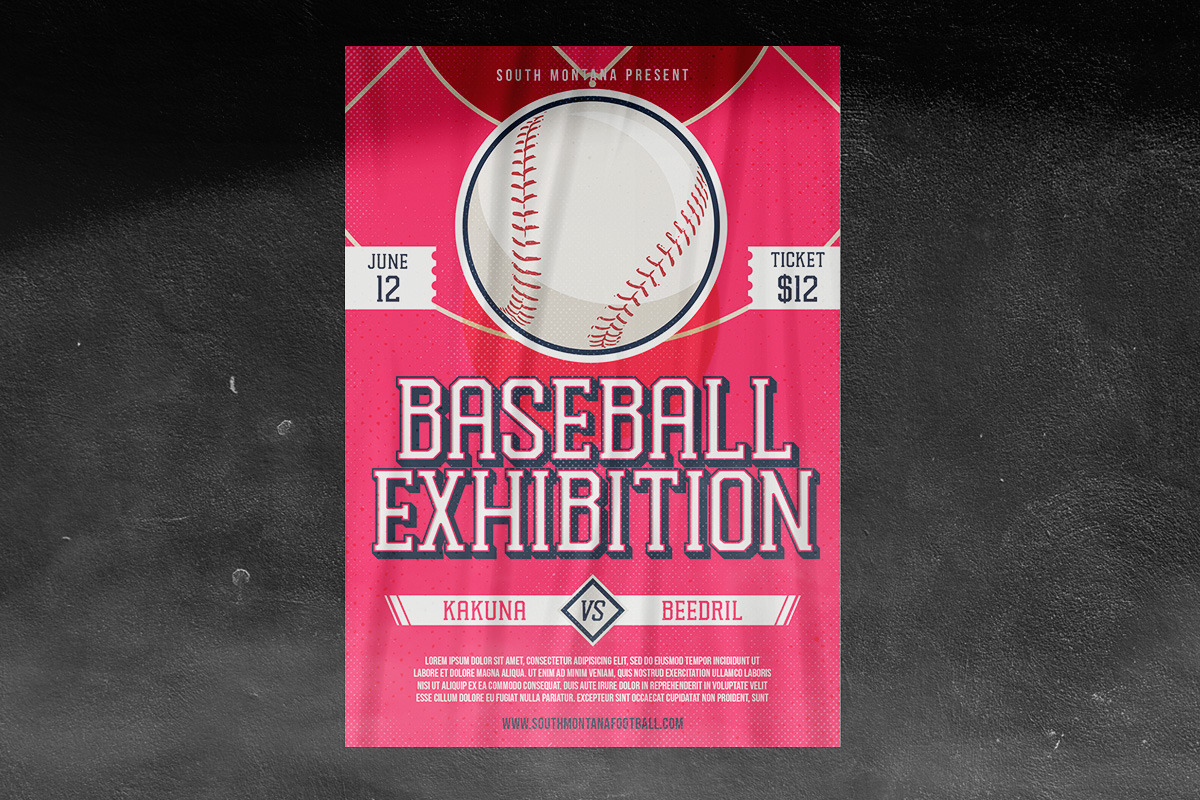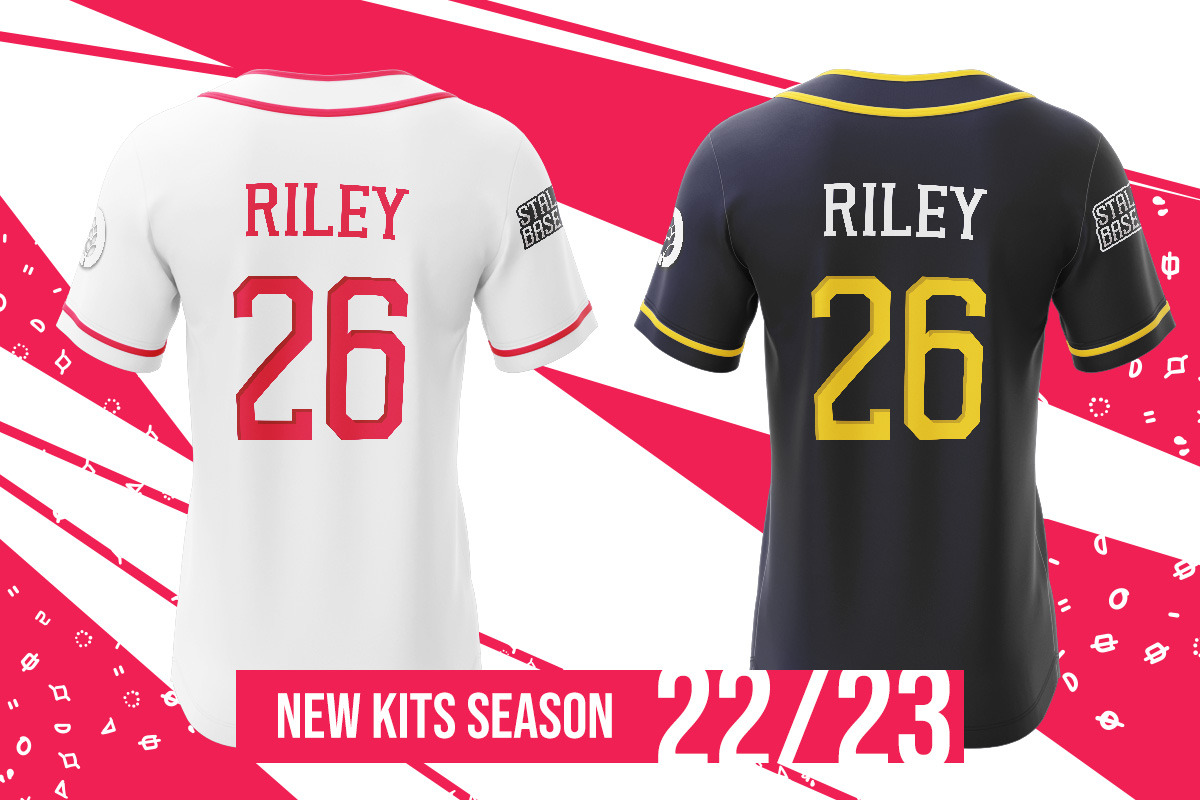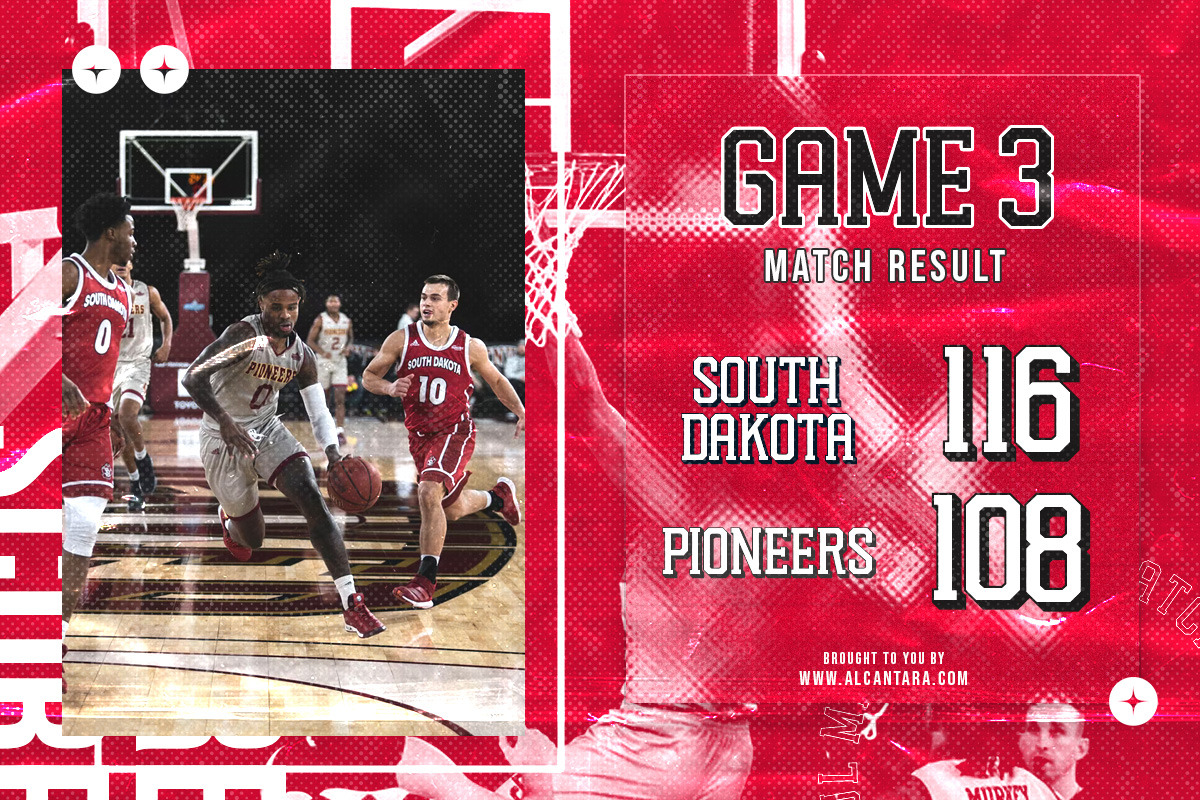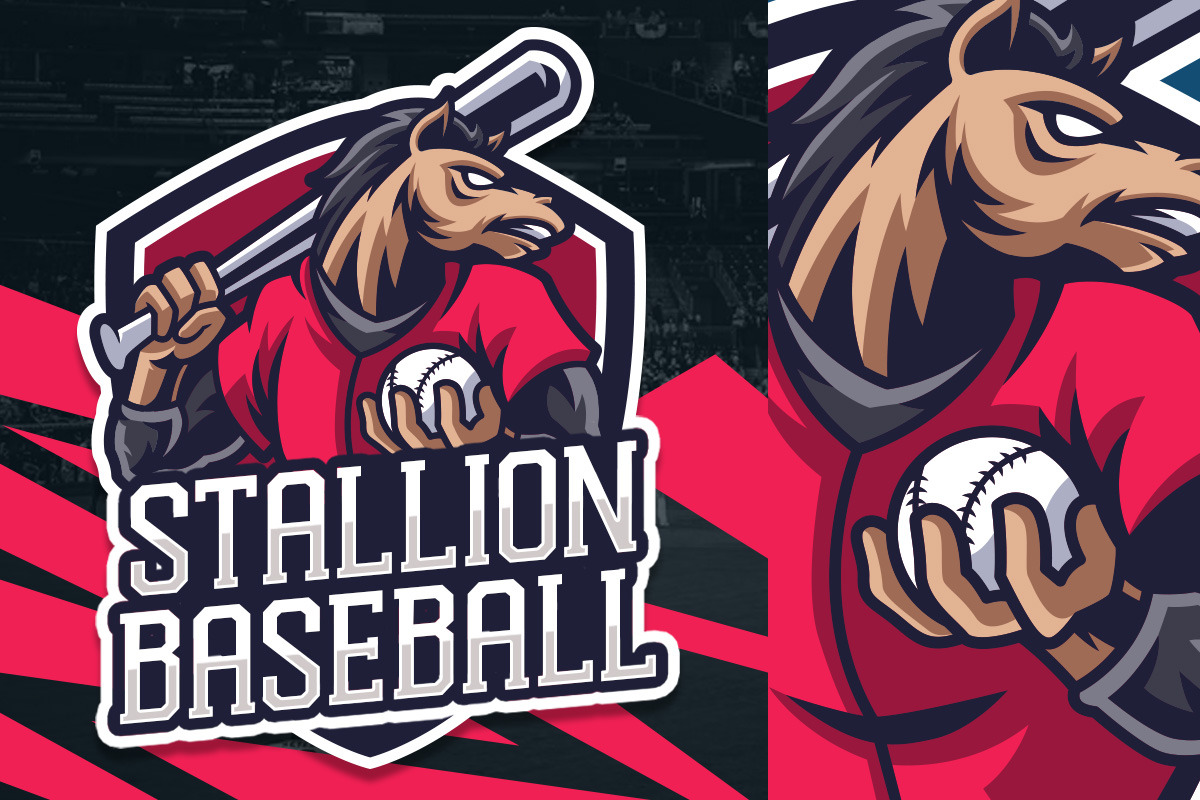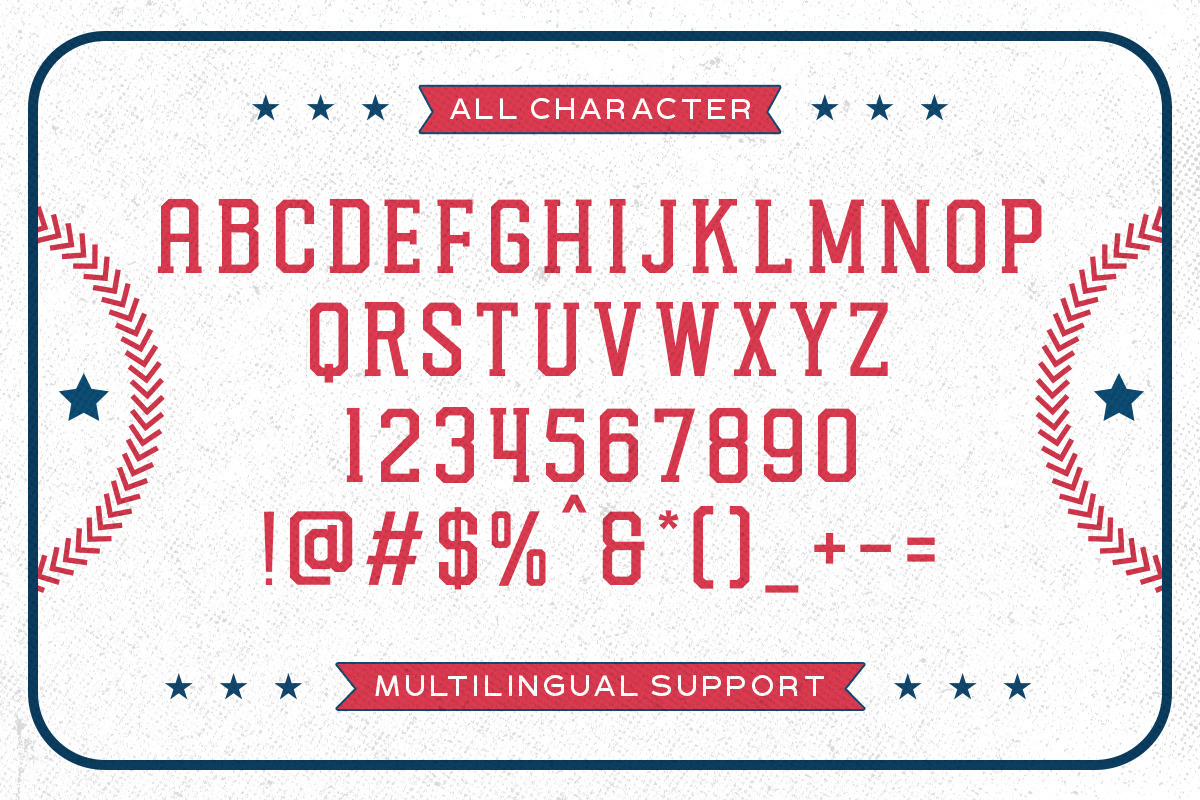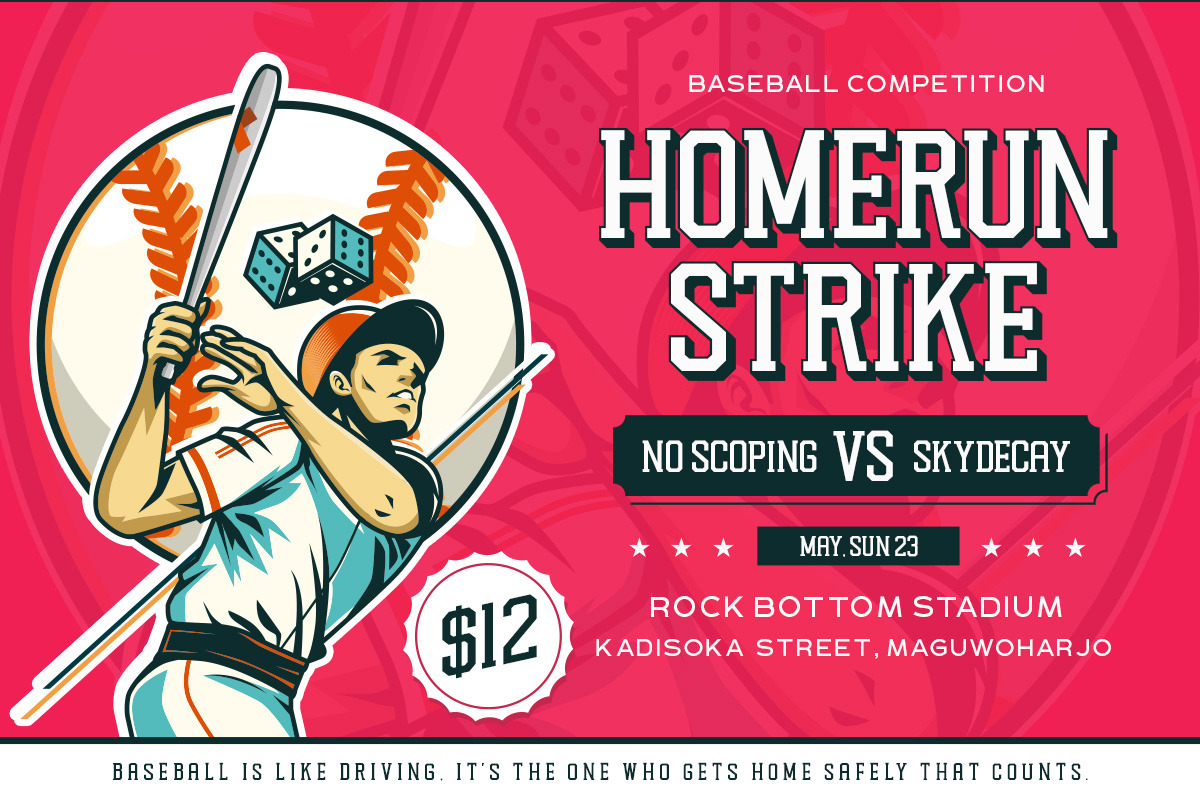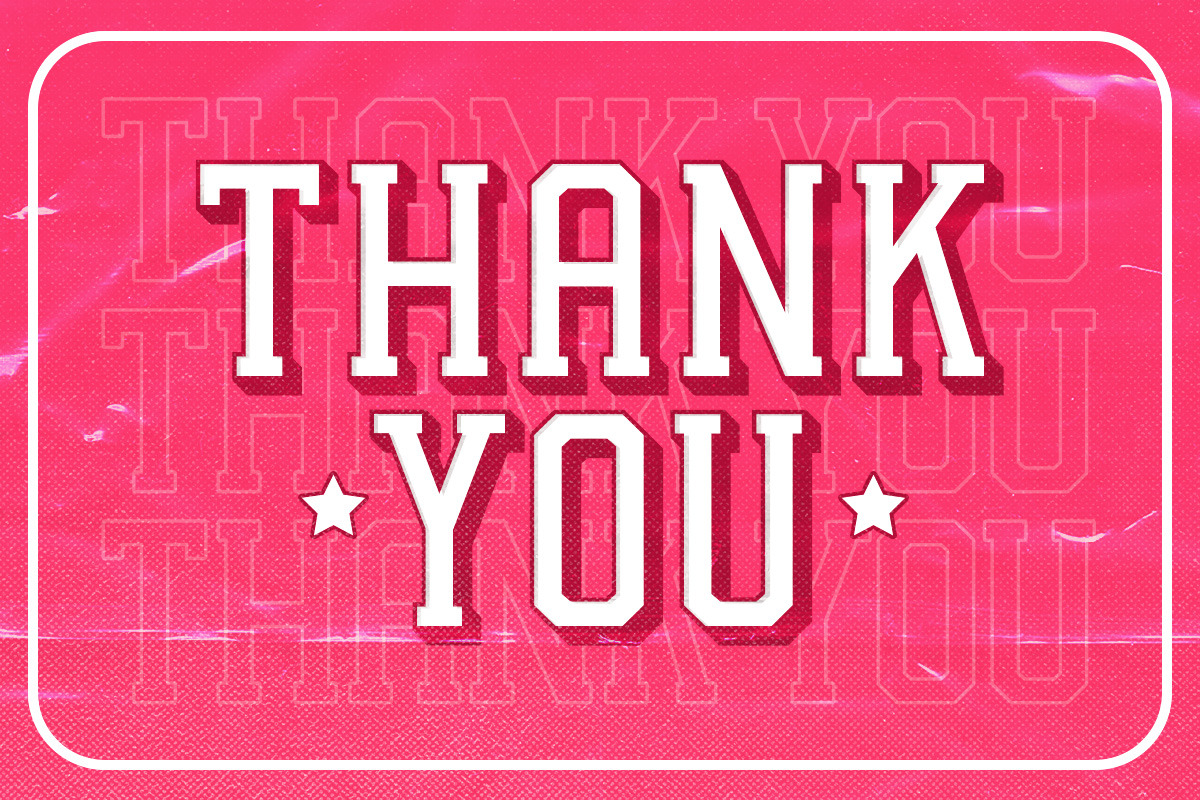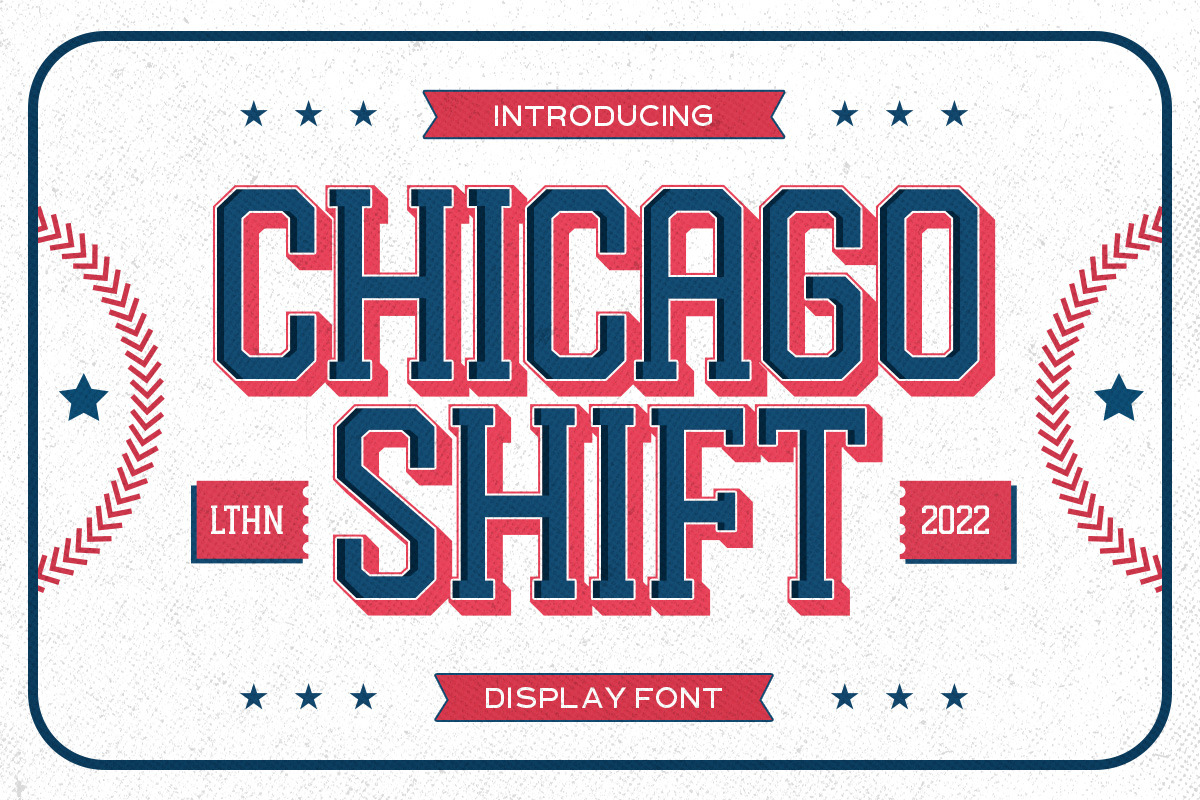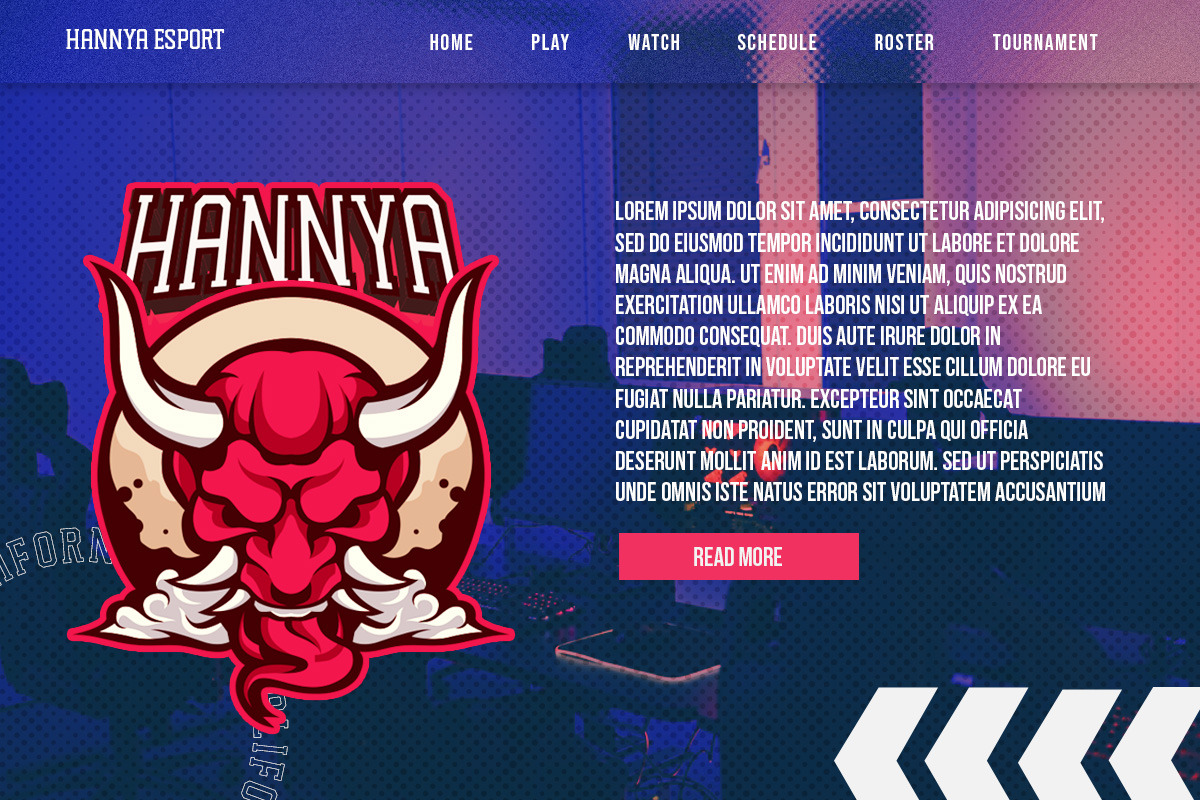
Chicago Shift - Sport Font
Chicago Shift is a font specialized made for sport theme. Very suitable for for headline, logotype, apparel, invitation, branding, packaging, advertising etc with old school / vintage as well as modern theme. It comes in uppercase, lowercase, punctuations, symbols & numerals, stylistic set alternate, ligatures, etc also support multilingual and already PUA encoded.
- alternates and ligatures